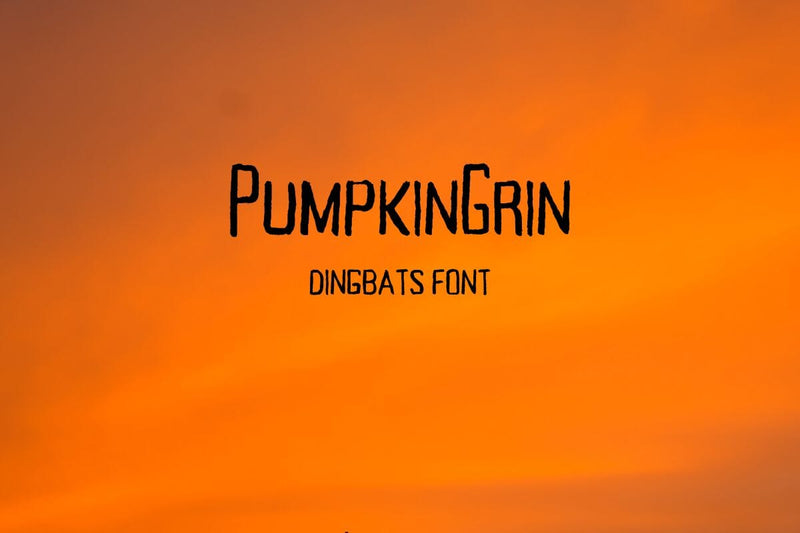
PumpkinGrin Dingbats Font
Indulge in the festivities of Halloween with PumpkinGrin, our uniquely designed dingbats font. Overflowing with whimsical charm, it beautifully showcases a variety of expressive Jack O’ Lantern faces. Unleash the spirit of Halloween in your design projects with this captivating, fun-filled font that embodies the essence of the season. Its playful allure adds a touch of light-hearted hilarity to your work, making it an ideal choice for invitations, posters, notecards and more. Delight in the joy that these bubbly Jack O’ Lantern faces bring to your creative journey, as you explore the spellbinding world of the PumpkinGrin font.